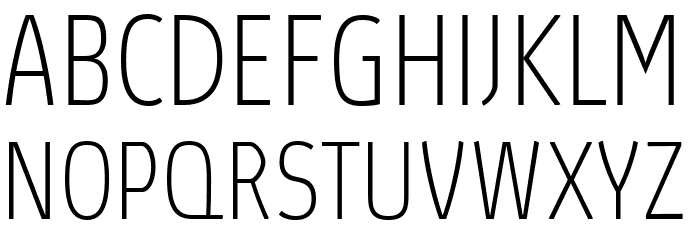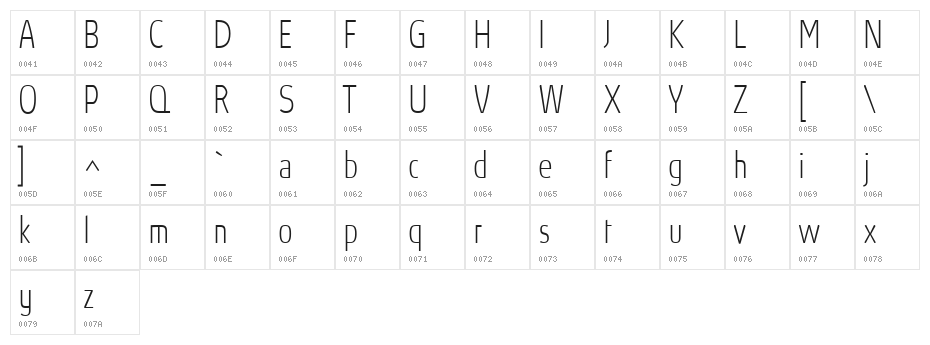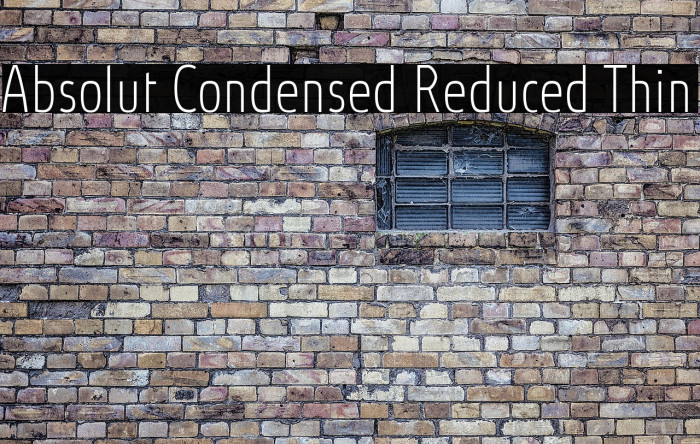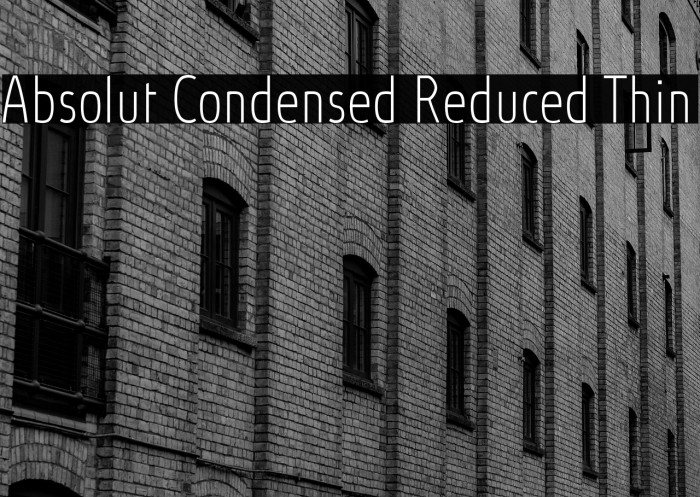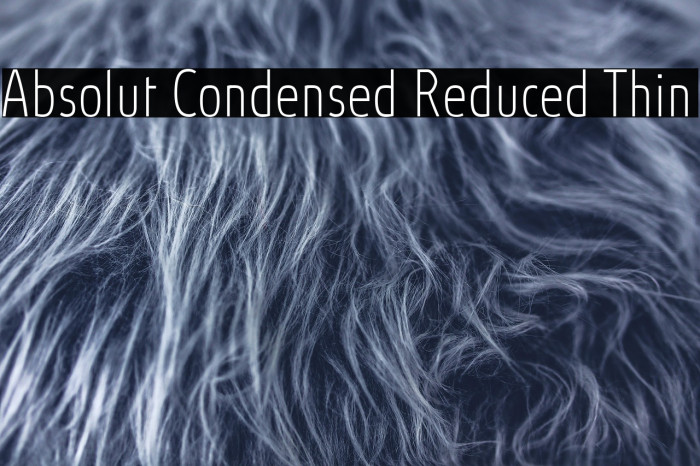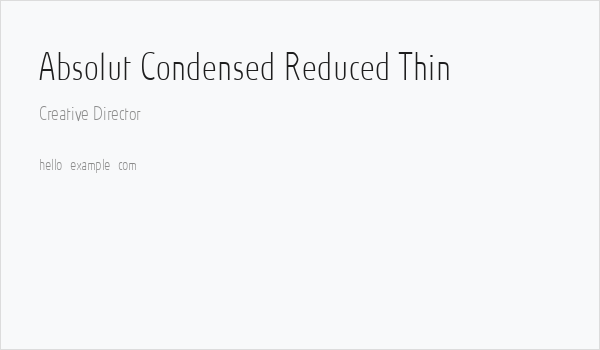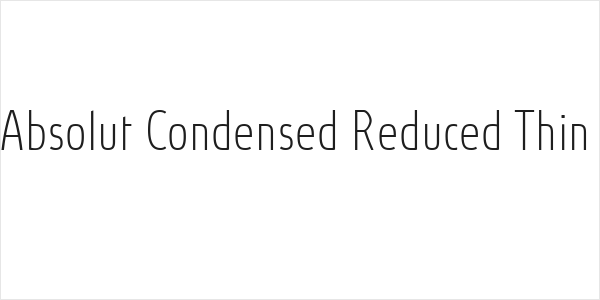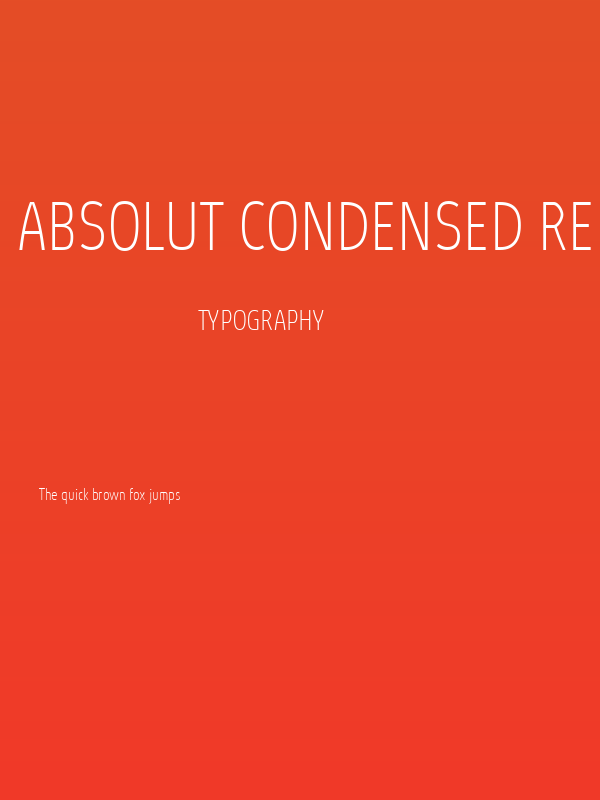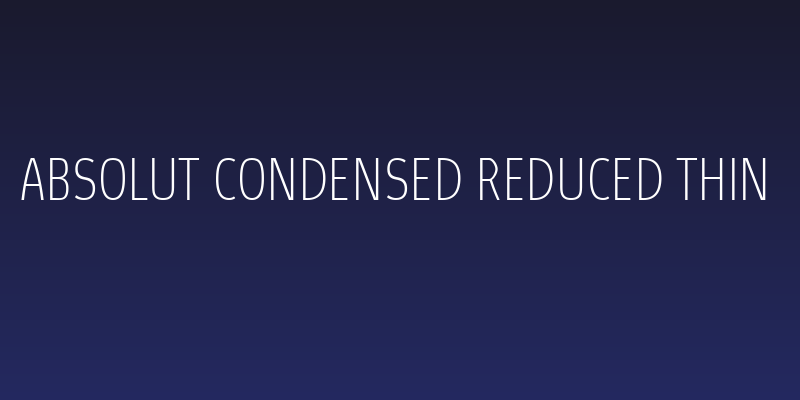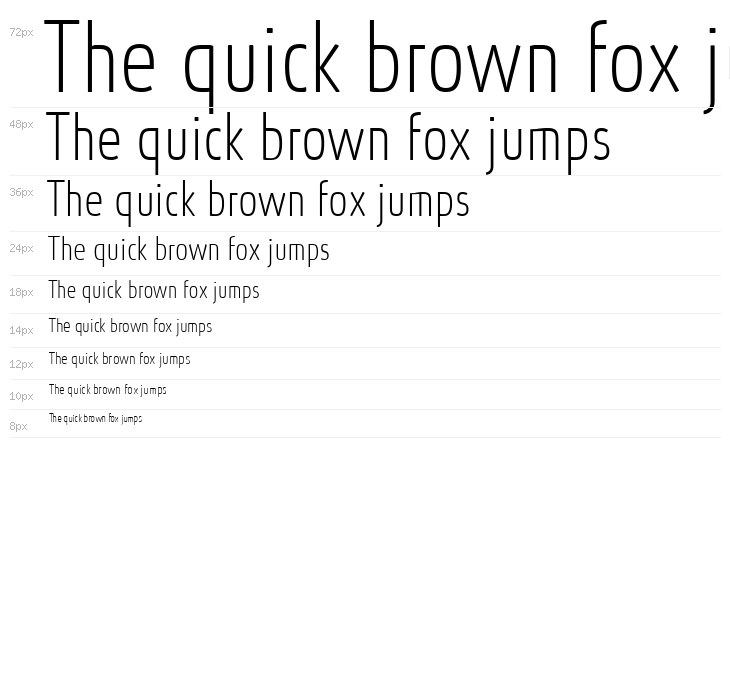
Absolut Condensed Reduced Thin Font
Absolut Condensed Reduced Thin Description
This font exhibits a sleek and modern design with a condensed structure, making it ideal for space-saving applications. The thin strokes give it a delicate and refined appearance, while maintaining legibility. Its geometric shapes and clean lines create a contemporary feel, suitable for various design contexts. The uniformity in letterforms ensures a cohesive look, enhancing readability even at smaller sizes. This font is versatile, fitting well in both digital and print media, and can be used to convey a sense of sophistication and elegance.
| Proposed Projects | Ideal for branding, editorial design, web design, and minimalist posters. |